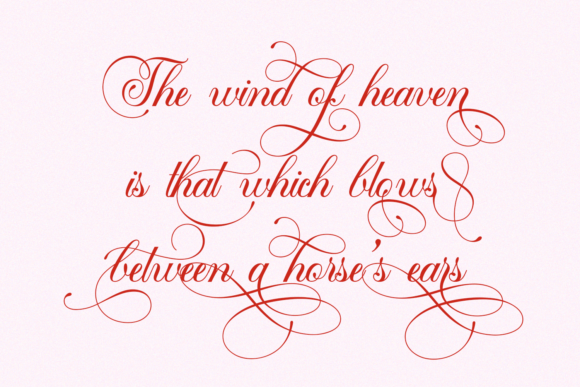
Mansdefia Font
Mansdefia is a sweet script font with a classic style and a touch of elegance, inspired by the handwriting of Italian women and ancient manuscripts. It is perfect for book covers, greeting cards, logos, branding, business cards, and so much more! This font is PUA encoded which means you can access all of the glyphs and swashes with ease!